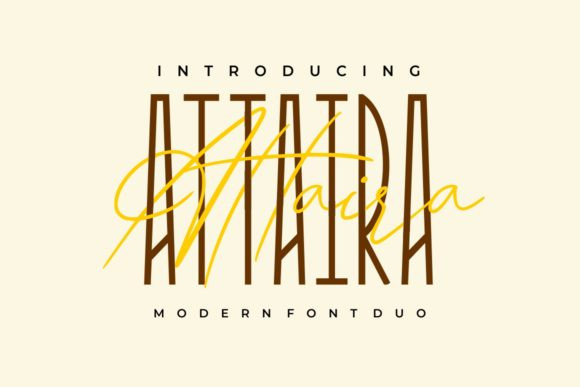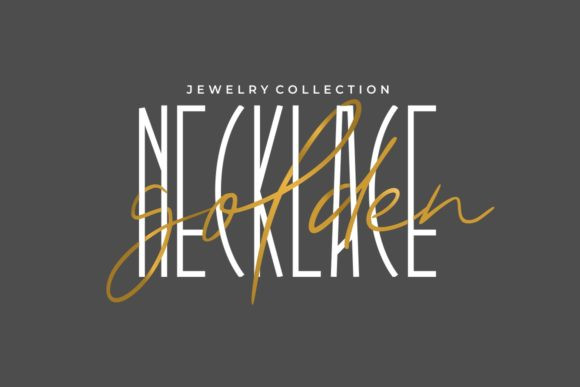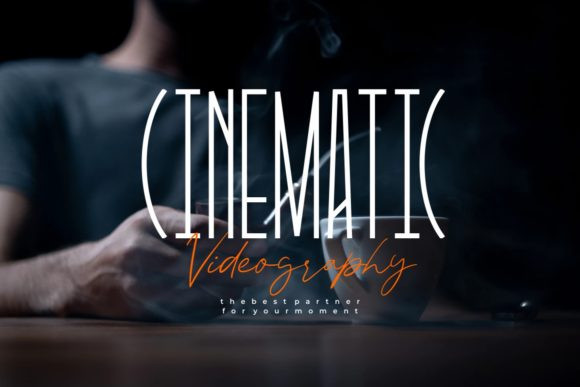
Attaira Font
Attaira is the perfect font pair to mix and match. Its script and sans serif font are perfectly suited for signatures, weddings, social media, stationery, logos, typography quotes, magazines and book covers, website headers and much more!